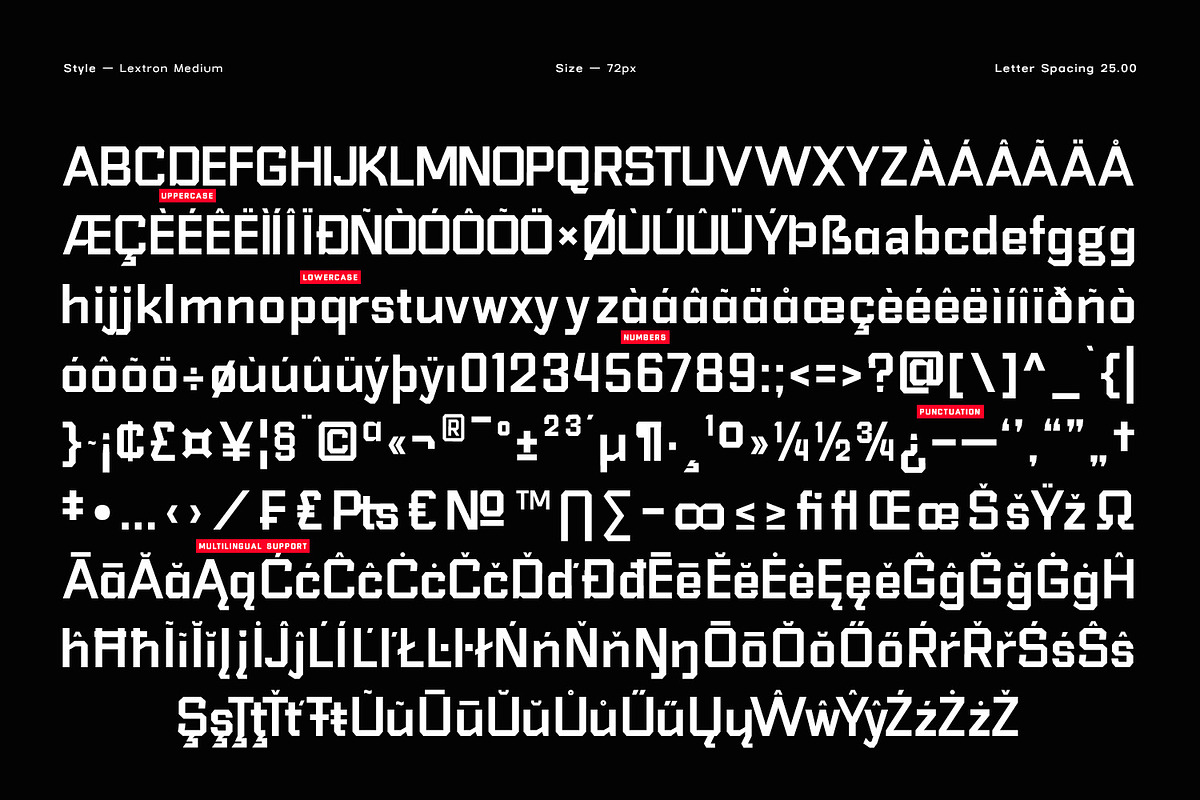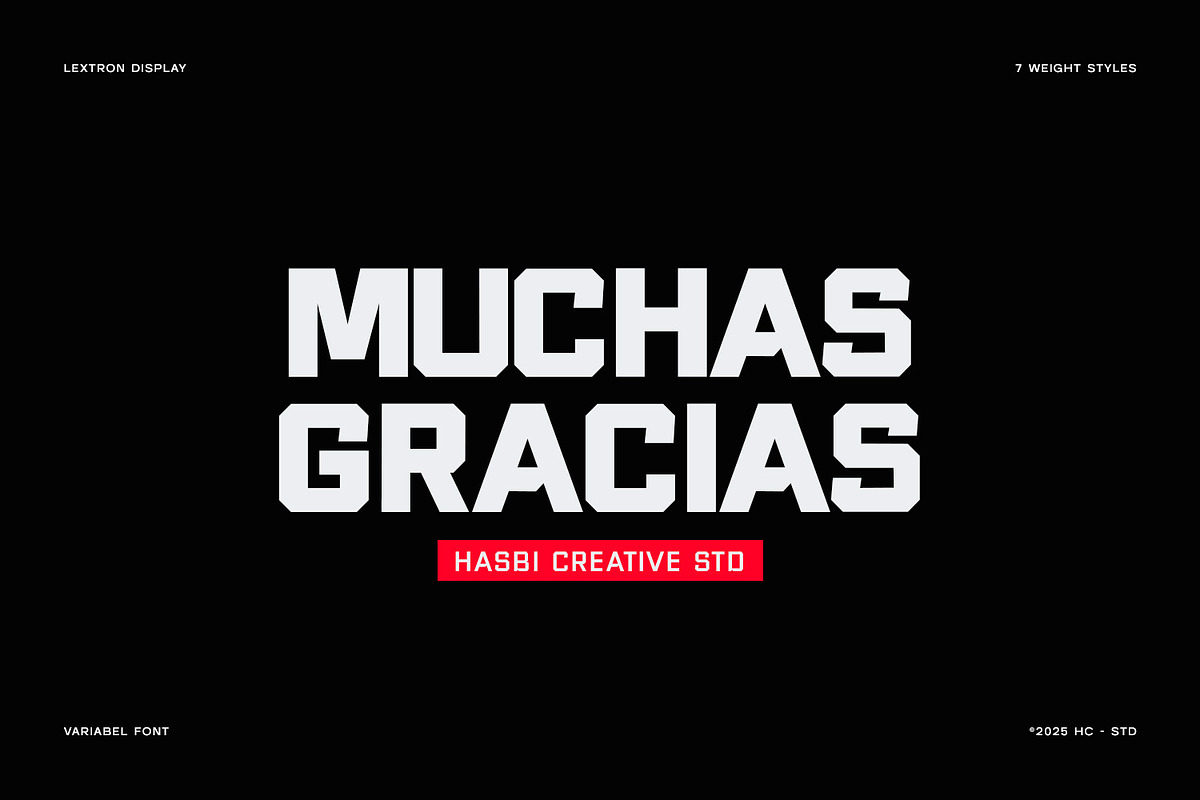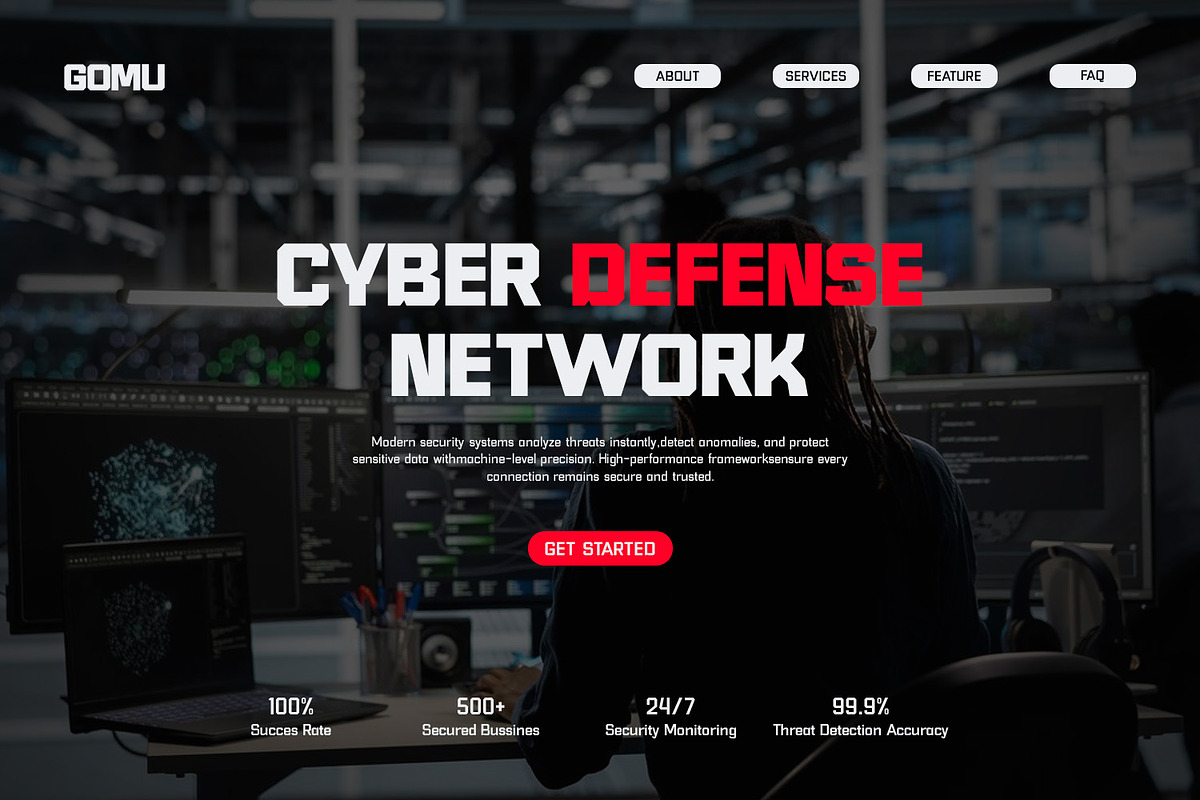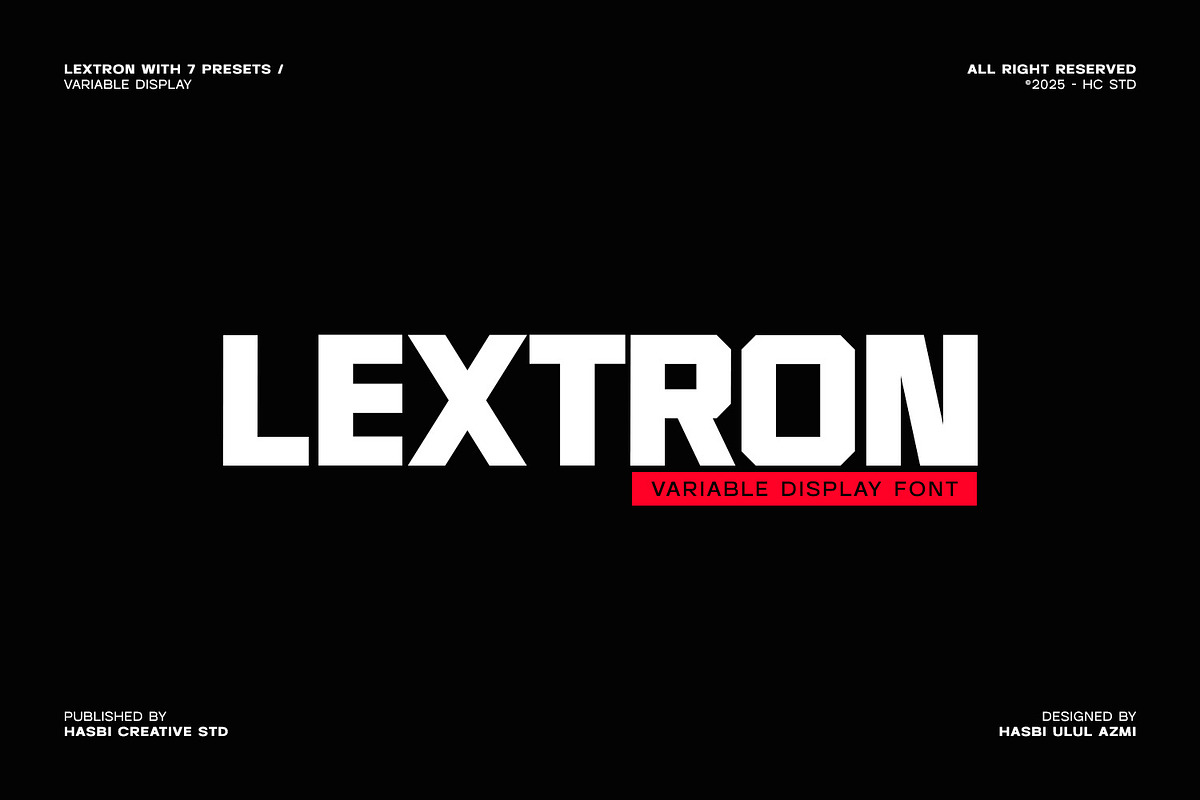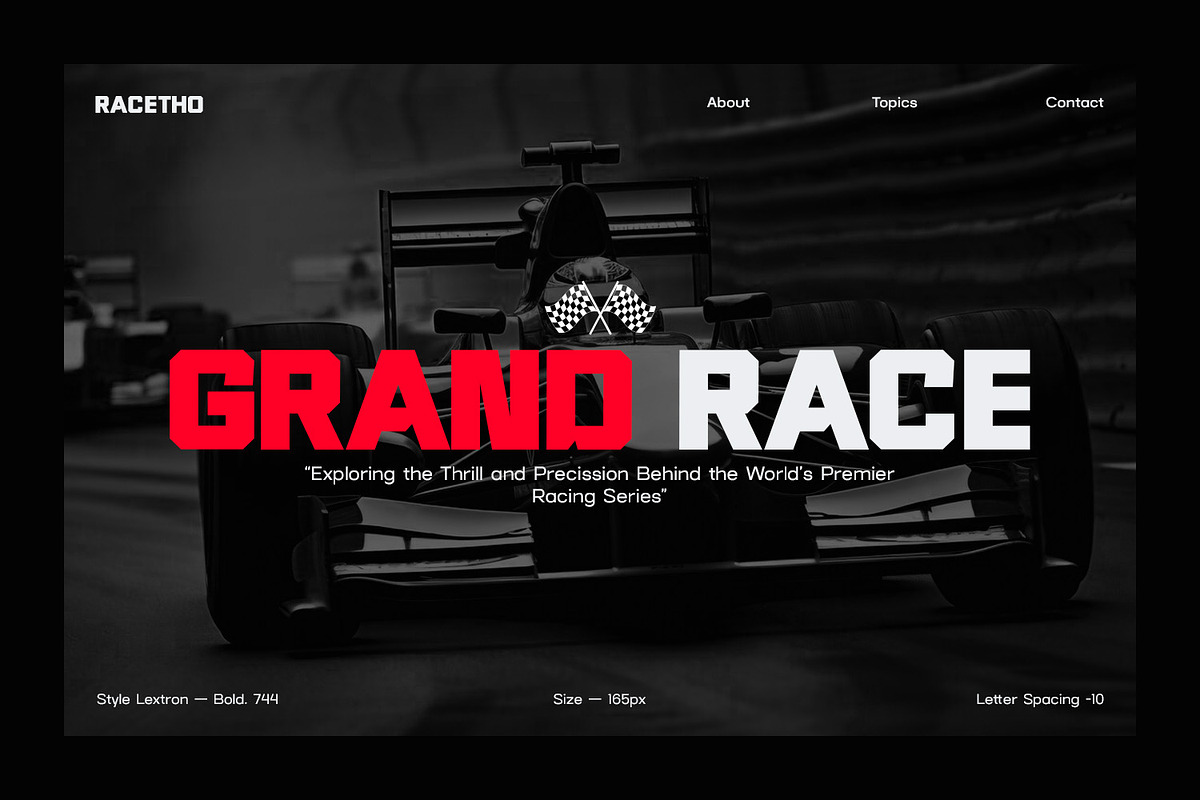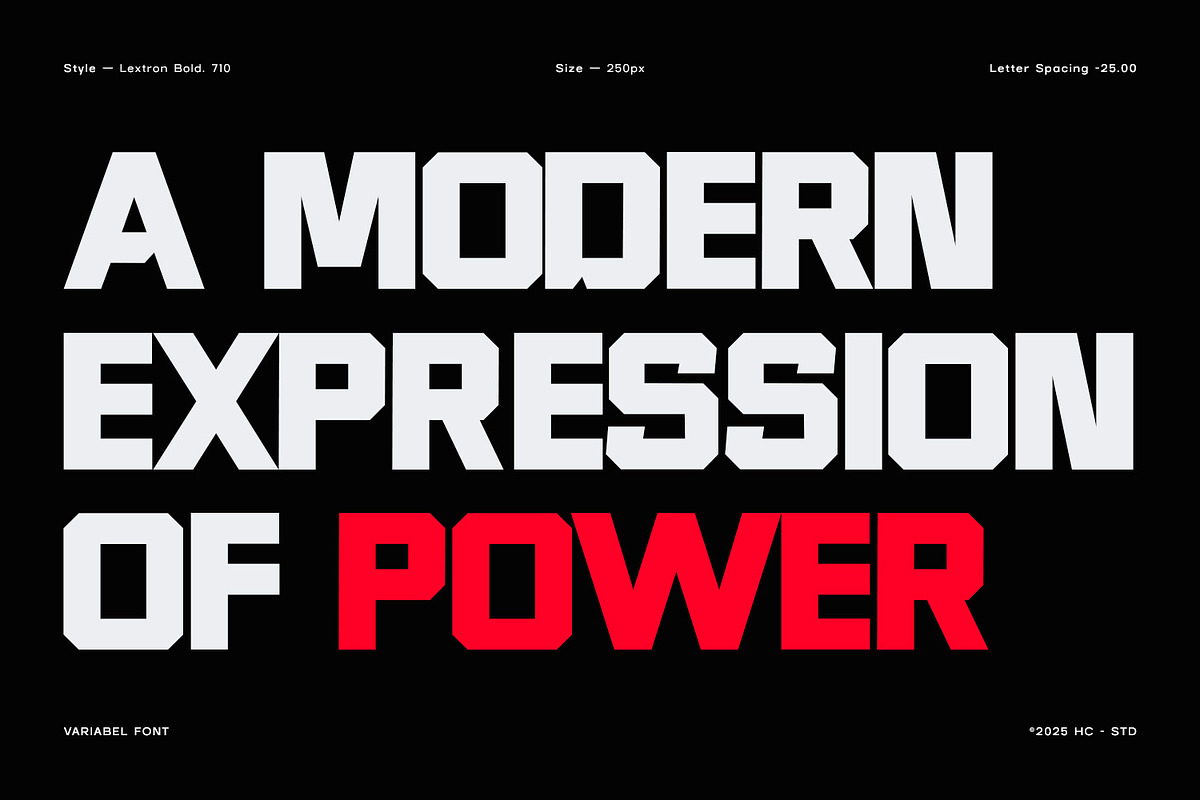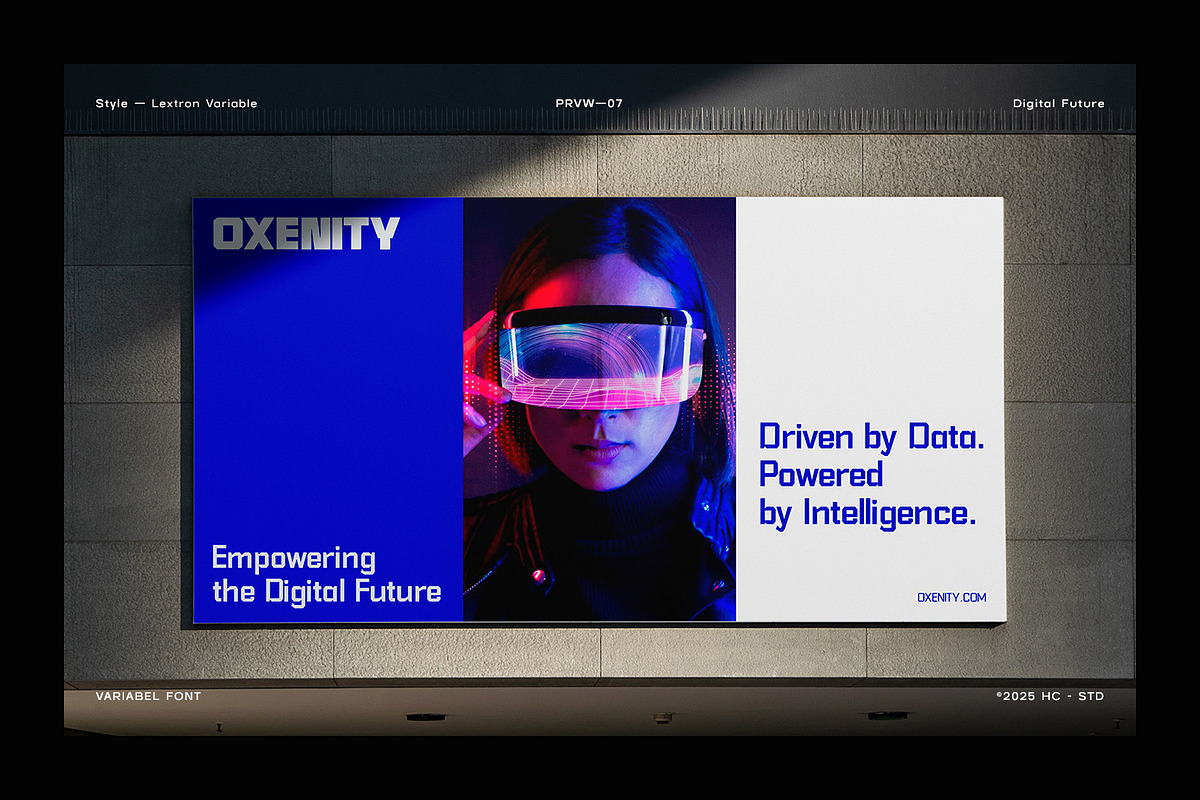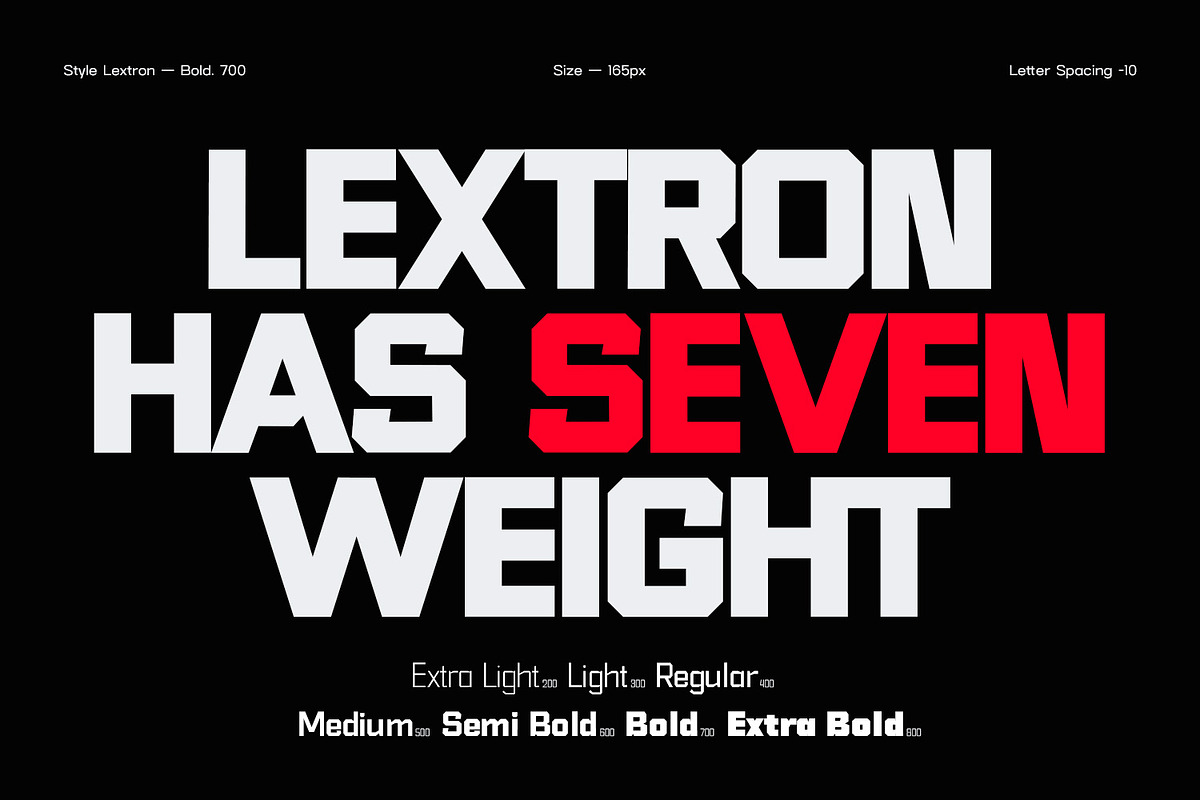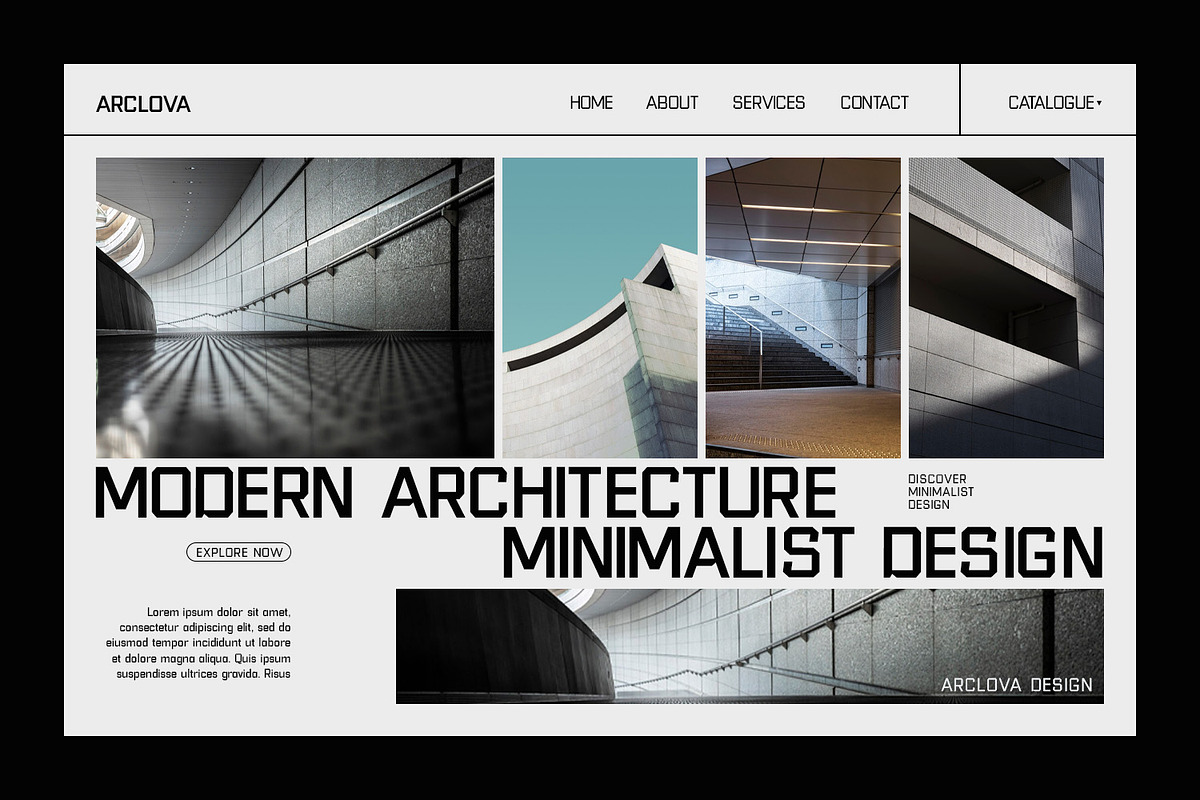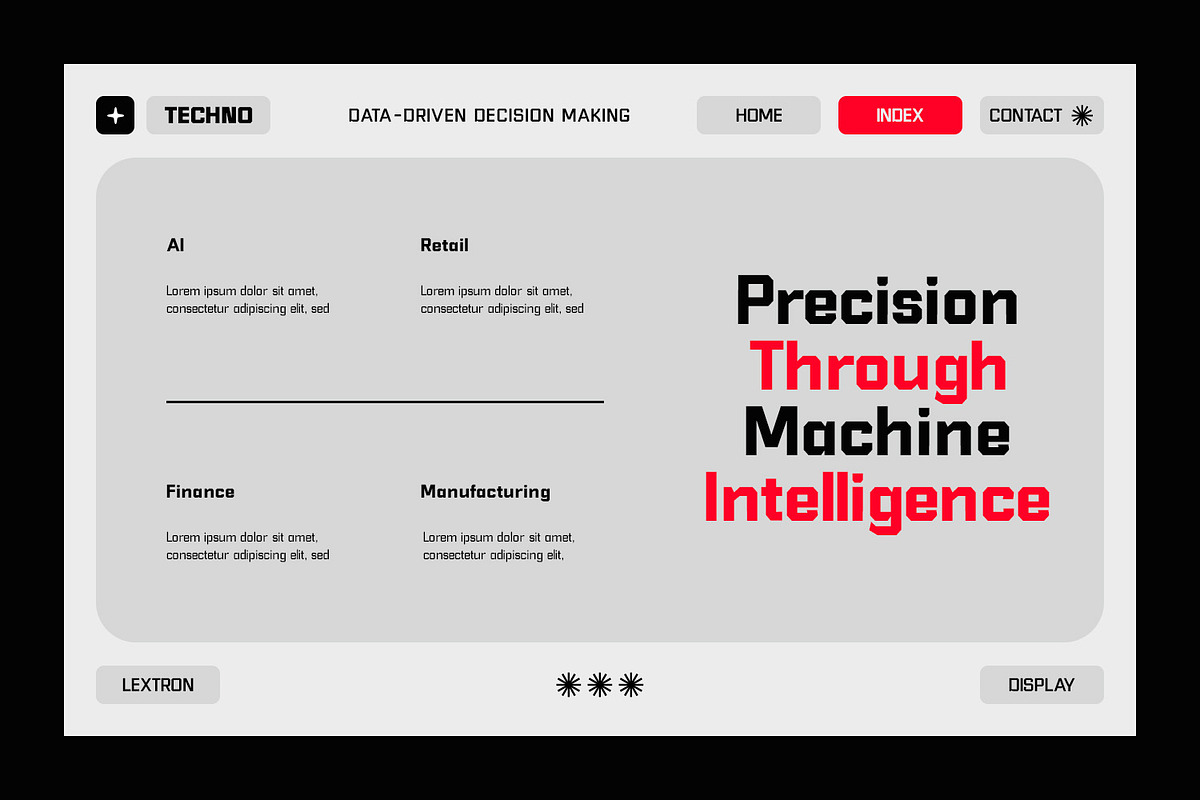
LEXTRON – Modern Geometric Display
LEXTRON is a bold geometric display sans created for designers who want to stand out with confident, modern, and futuristic typography. Built with precise engineering and sharp visual structure, Lextron delivers a strong presence in every project — from AI branding, technology presentations, and digital dashboards to product packaging, editorial layouts, and high-impact promotional visuals. Every letterform in Lextron is shaped with a clean geometric foundation, producing a streamlined and modern look that works beautifully in large headlines, bold statements, and expressive display typography. With seven carefully balanced weights, Lextron adapts effortlessly to a wide range of creative needs while maintaining clarity and consistency. Whether you're building a tech startup identity, designing a premium UI interface, developing futuristic posters, or crafting modern corporate visuals, Lextron gives your work the power, precision, and visual sophistication it deserves.
- 7 Weights – Thin, Extra Light, Light, Regular, Medium, Semi Bold, Bold
- Clean, Consistent Spacing & Kerning
- Multilingual Support (Latin Extended)
Bring the future to your design — with LEXTRON.